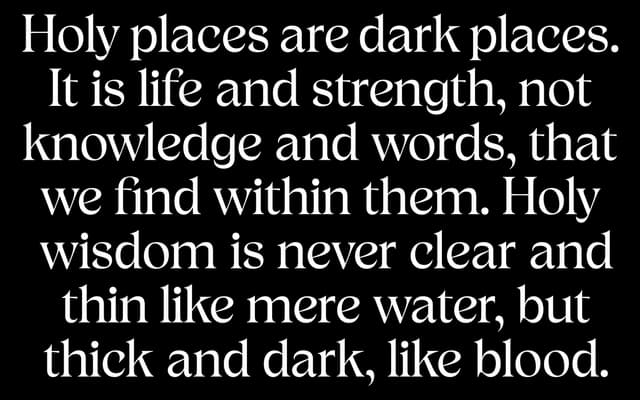
A grotesque sans-serif family from Beasts of England spanning six weights across three widths, with a variable file included in the full family purchase.
Eighteen static styles cover Regular, Condensed and Wide widths, each running from Regular through to Heavy, giving the family considerable range for text and display use. The full family purchase includes a variable font file, allowing fluid interpolation across the weight and width axes. The atmospheric prose used in the specimen nods to the English folk horror tradition, setting a quietly sinister tone that suits the typeface's sturdy, ecclesiastical name.
Cleric presents as a sturdy grotesque sans-serif with three width variants and a range of weights, following the conventions of utilitarian European grotesque design.